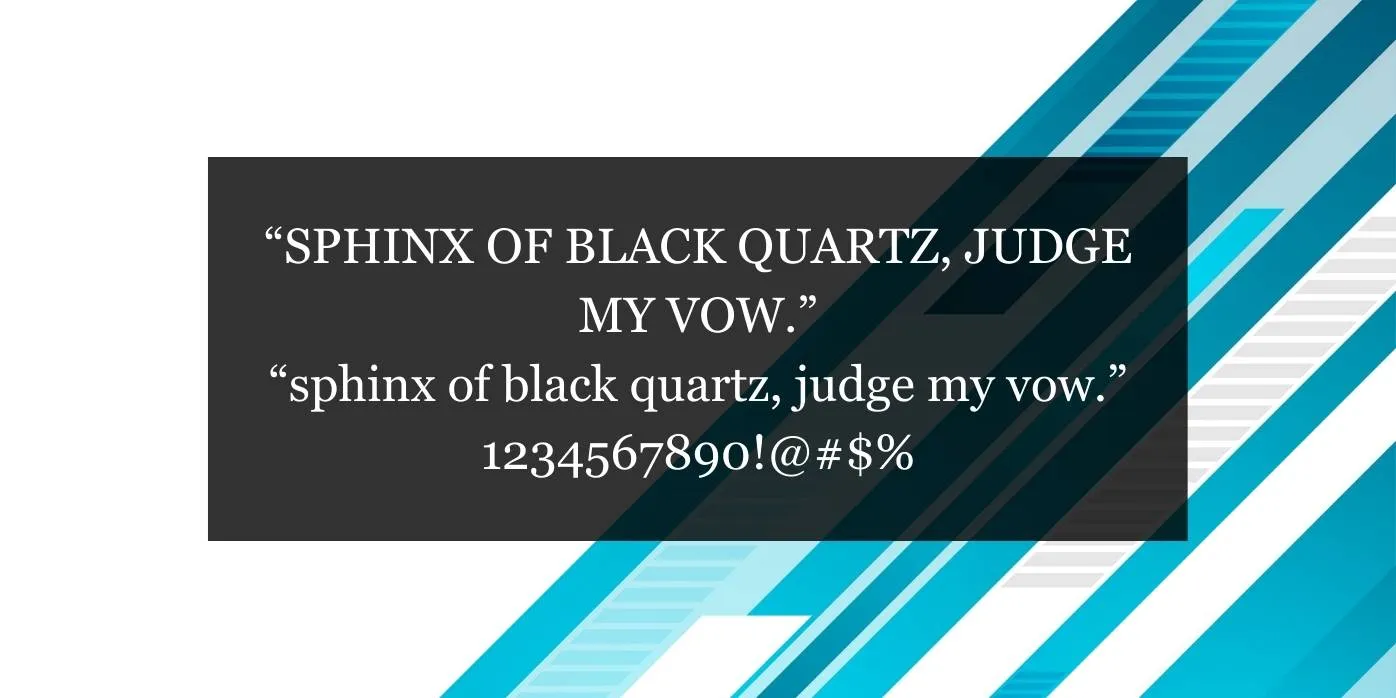
Georgia Font
Today, we are consulting on a very famous typeface known as Georgia Font. This family belongs to the serif family. This typeface was designed by Matthew Carter. The Georgia Font was designed in 1993.
It was commissioned by Microsoft for use as the default font in their Windows operating system. It is well defined for CSS. It is a digital typeface that has TrueType outlines. You can use albertus mt font which has the same style and characters as this one.
This typeface was created with the intention of providing a screen display font that would be more legible than other existing typefaces at small sizes. You can search it on google. Its copy and paste function is best for many designs. The Georgia Font family includes six different weights: regular, bold, italic, bold italic, black, and black italic.
Each weight includes several hundred characters, including most of the standard Latin alphabet, as well as Greek and Cyrillic alphabets. This tremendous font was designed to be highly readable at small sizes on on-screen displays.